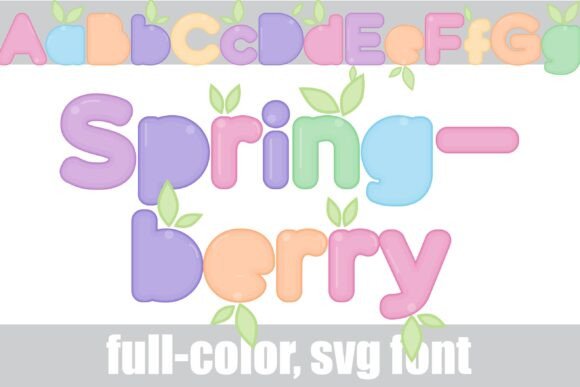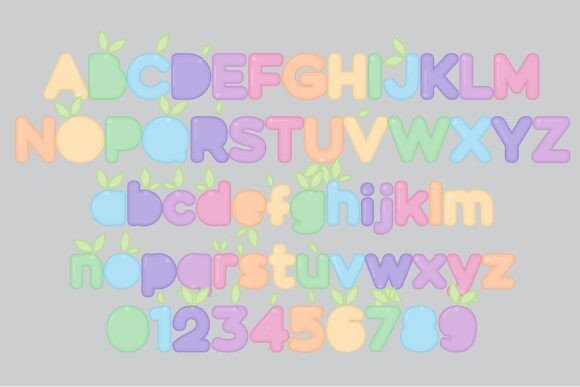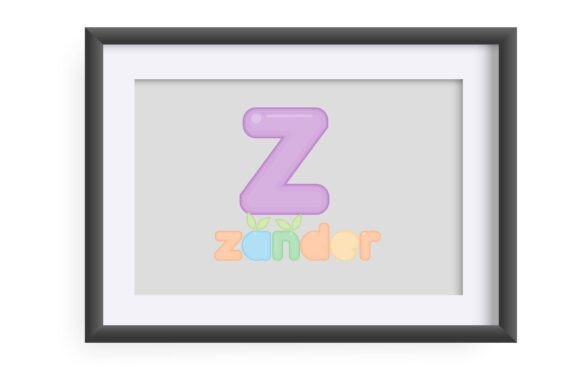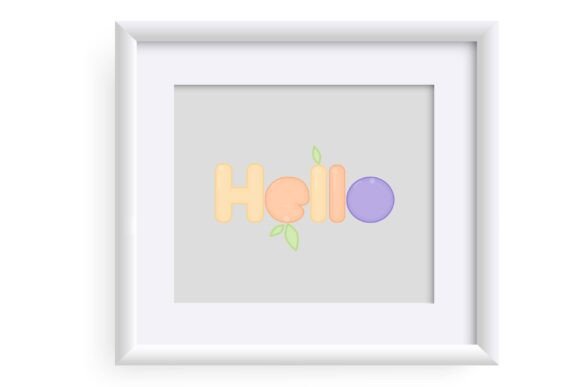
Springberry Font
About the Springberry Font
Explore the possibilities with Springberry Font, a font that offers both beauty and functionality. This full-color font features a rounded sans serif with highlights and leaves like berries. There is an alt case of additional colors of each letter that you can access through your system or Silhouette’s glyph map. Access a bunny and chick by typing the greater than and less than glyphs.